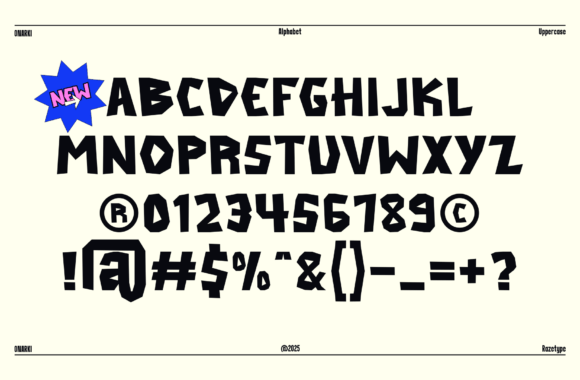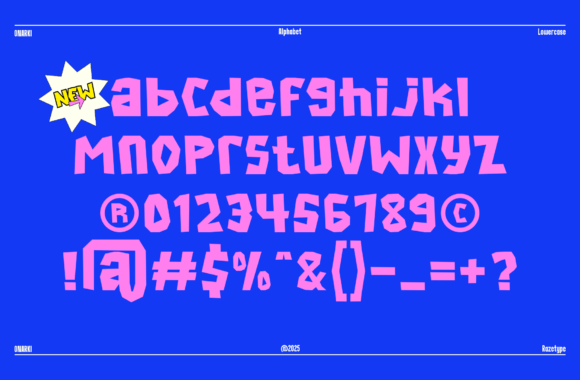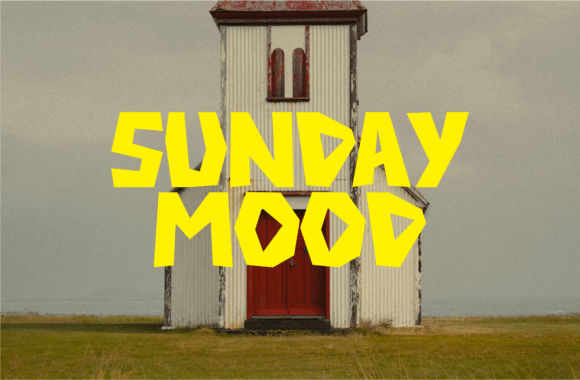
Introduction to Onarki Font Font
Fonts play a crucial role in design, and the Onarki Font font is a typeface that brings both character and versatility to any project. Whether you’re working on a branding project, a website, or a print design, the Onarki Font font offers a unique style that can elevate your work.
ONARKI font is a bold and expressive display typeface that captures the rebellious energy of street culture and urban art.
Unleash the energy of the urban landscape with the Onarki font, a bold, blocky typeface inspired by the raw power of street art and protest culture This Onarki typeface features sharp angles and a heavy, shadowed presence that mimics hand-cut stencils or large-scale mural lettering.
Key Features of Onarki Font Font
Why Choose Onarki Font Font?
The Onarki Font font is more than just a typeface – it’s a design tool that helps you communicate your message with style and clarity. Its unique character set and versatile design make it suitable for a wide range of applications, from elegant invitations to bold headlines.
With its carefully crafted letterforms and balanced proportions, the Onarki Font font ensures readability and visual appeal across all mediums.
What makes Onarki Font font special?
The Onarki Font font stands out with its unique design, exceptional readability, and versatility across various design applications.